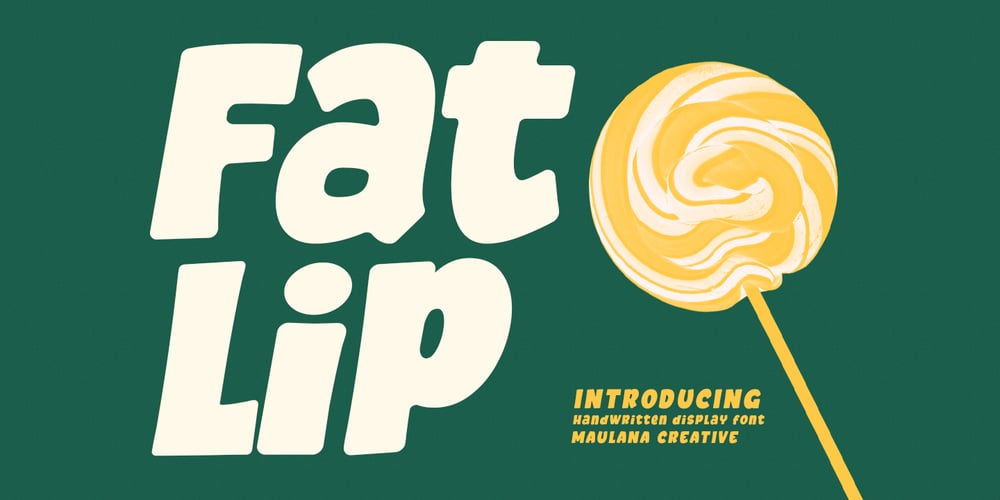
MC Fatlip
MC Fatlip font
MC Fatlip Font Family was designed by Gilang Maulana and published by Maulana Creative. MC Fatlip contains 1 styles and family package options. Fatlip is a casual slanted handwritten font. With bold consiststroke, fun character with a bit of ligatures and alternates. To give you an extra creative work. Fatlip font support multilingual more than 100+ language. This font is good for logo design, Social media, Movie Titles, Books Titles, a short text even a long text letter and good for your secondary text font with sans or serif. Make a stunning work with Fatlip font. Cheers, Maulana Creative